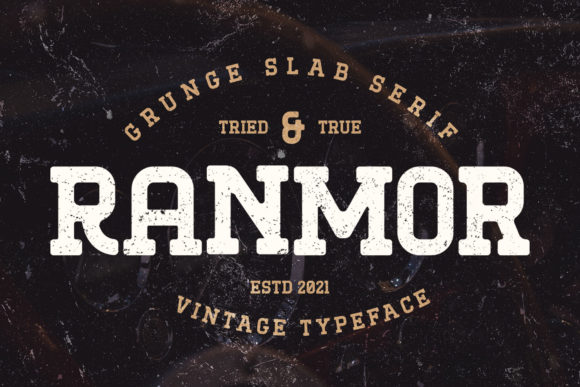
Introducing Ranmor Font, the ultimate solution for all your sports t-shirt design needs! This bold, vintage styled and thick lettered slab serif font, created by the talented Arterfak Project, is here to elevate your designs to a whole new level.
Ranmor Font is packed with incredible features that will leave you in awe. With PUA encoding, accessing all the amazing glyphs and swashes has never been easier! This means you have the freedom to experiment and create truly unique and captivating designs effortlessly.
Imagine the impact your next sports t-shirt design will have with Ranmor Font. Its bold and powerful appearance will instantly catch the eye of any sports enthusiast. Whether you're designing for a football team, a basketball league, or any other sports-related event, Ranmor Font is the perfect choice to convey strength, passion, and determination.
But Ranmor Font doesn't stop at sports. Its vintage style adds a touch of nostalgia and authenticity to any project. From retro logos to vintage posters, this font will transport your audience back in time, creating a sense of familiarity and connection.
Not only does Ranmor Font offer stunning aesthetics, but it also guarantees exceptional quality. Crafted with meticulous attention to detail, this font ensures perfect legibility and readability, even from a distance. Your message will be loud and clear, leaving a lasting impression on anyone who lays eyes on your design.
So, why settle for ordinary when you can stand out from the crowd? Unlock the true potential of your sports t-shirt designs with Ranmor Font. Get ready to impress and inspire with this bold, vintage slab serif font that is sure to leave a lasting impact on anyone who sees it.